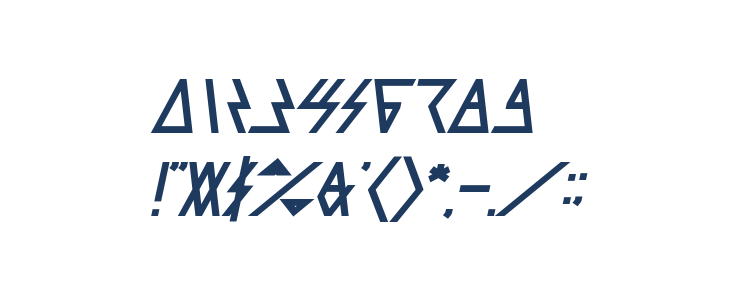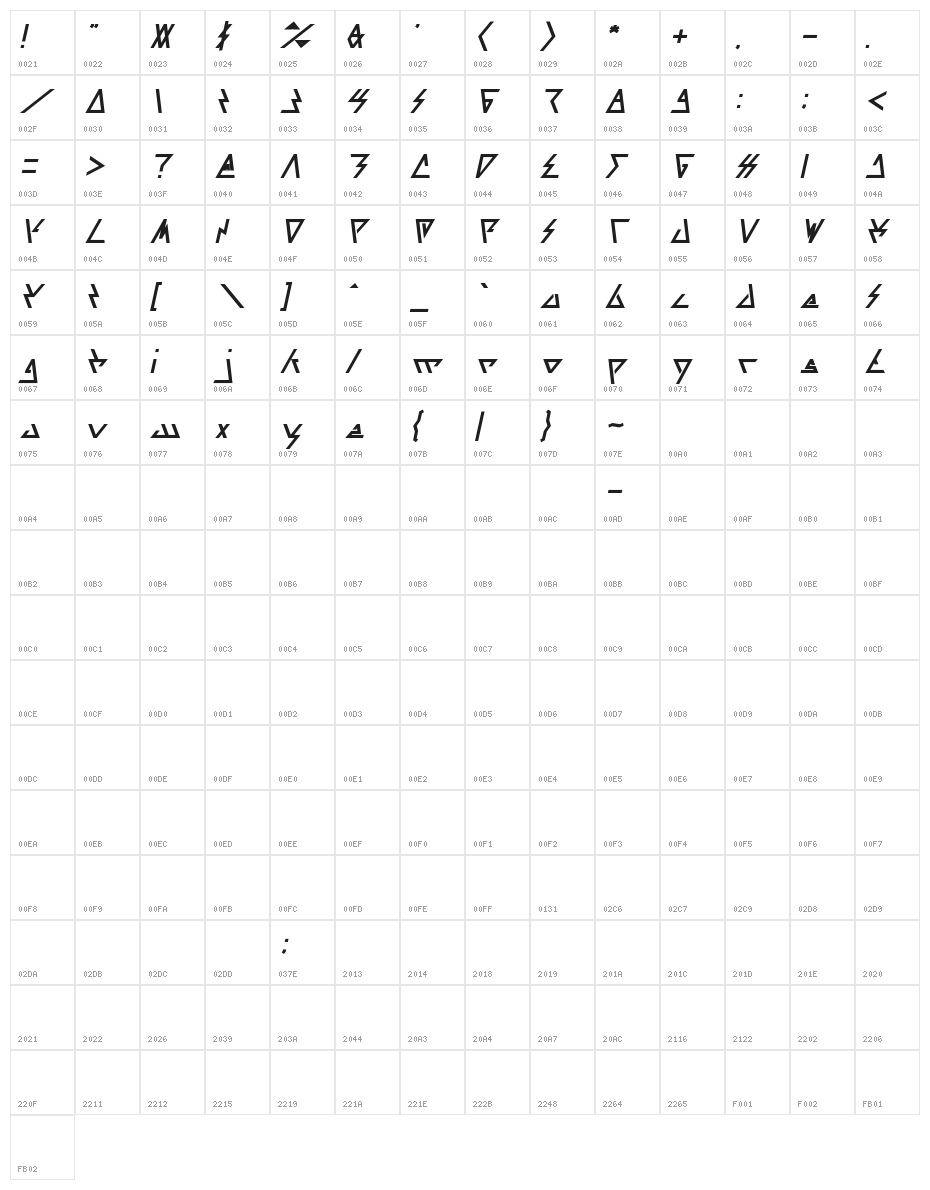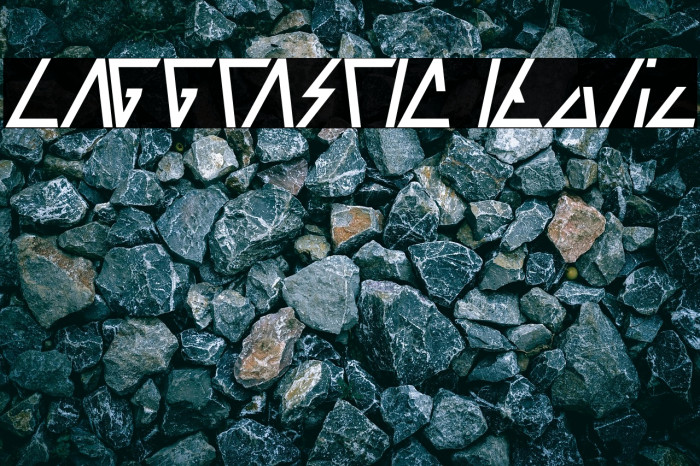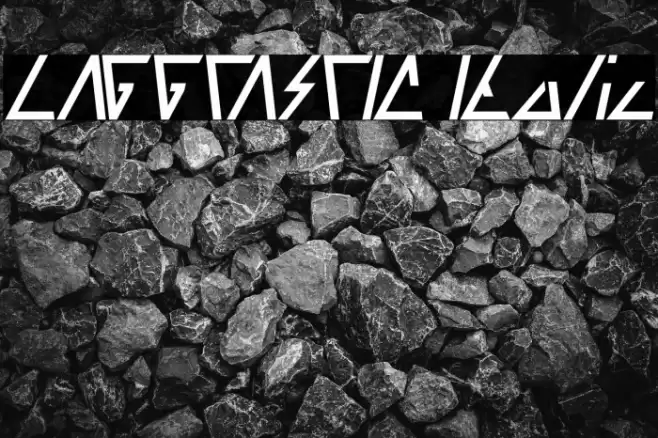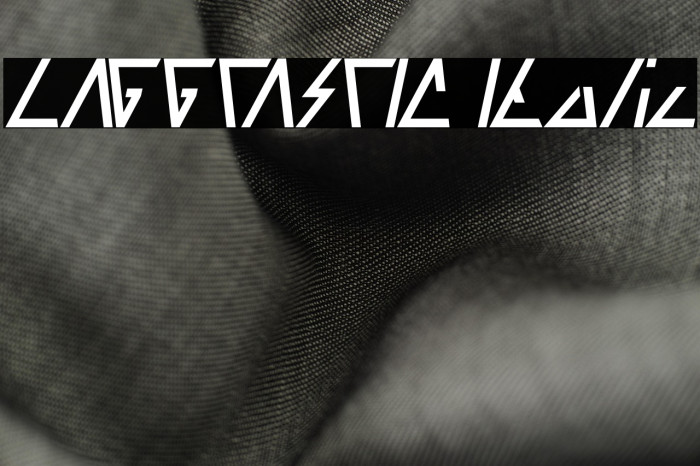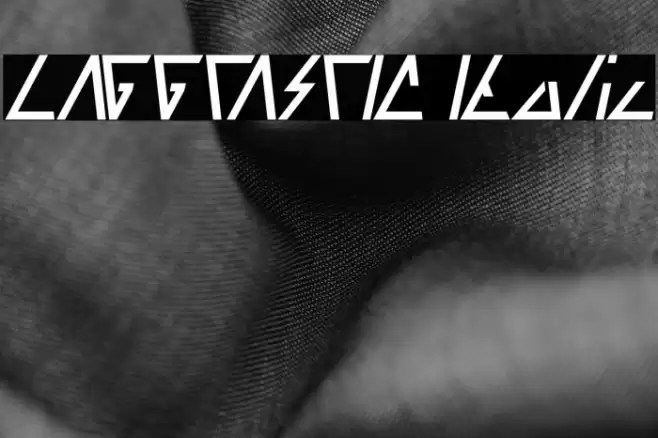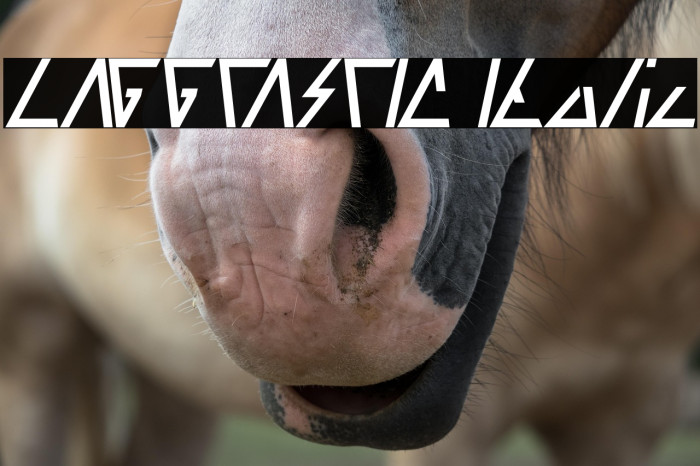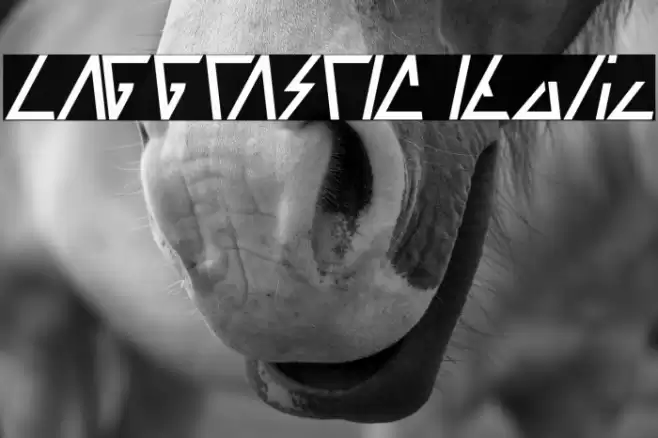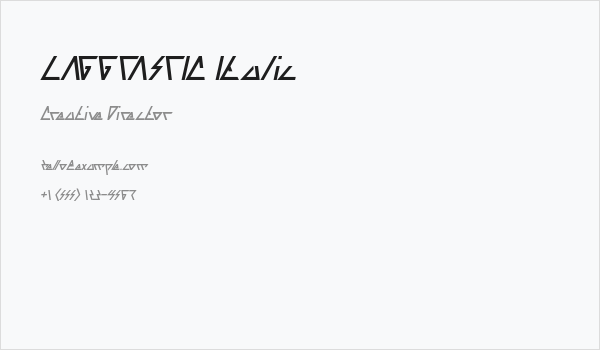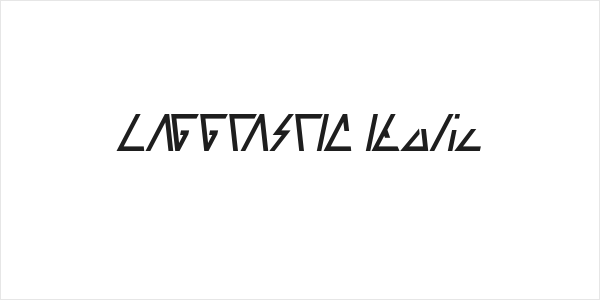
LAGGTASTIC Italic Font
LAGGTASTIC Italic Description
This font features a bold, angular design with sharp edges and geometric shapes, creating a futuristic and edgy appearance. The uppercase and lowercase letters maintain a consistent style, with each character exhibiting a unique angular form that adds to the overall dynamic look. The numbers and special characters follow the same design principles, ensuring uniformity across all elements. The font's distinct style makes it stand out, ideal for projects that require a modern and unconventional aesthetic.
| Proposed Projects | Ideal for sci-fi themed designs, video game titles, posters, and branding that requires a modern, edgy look. |